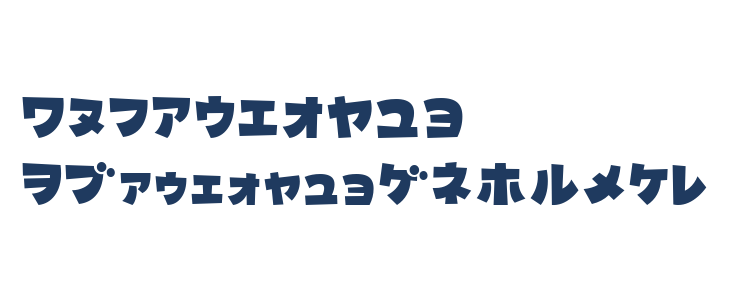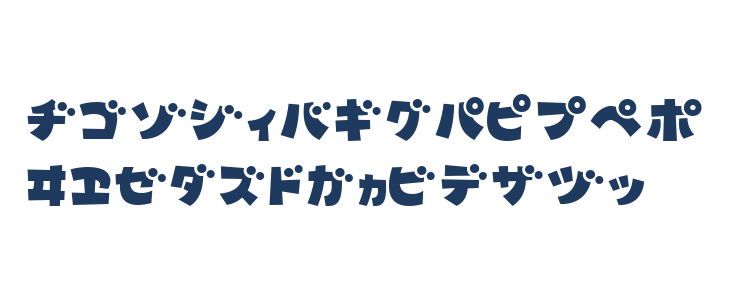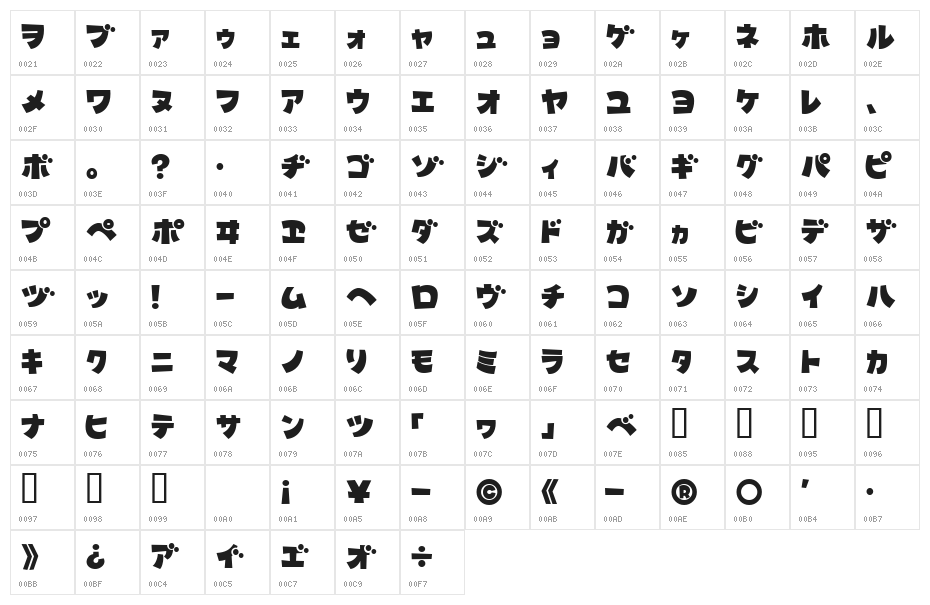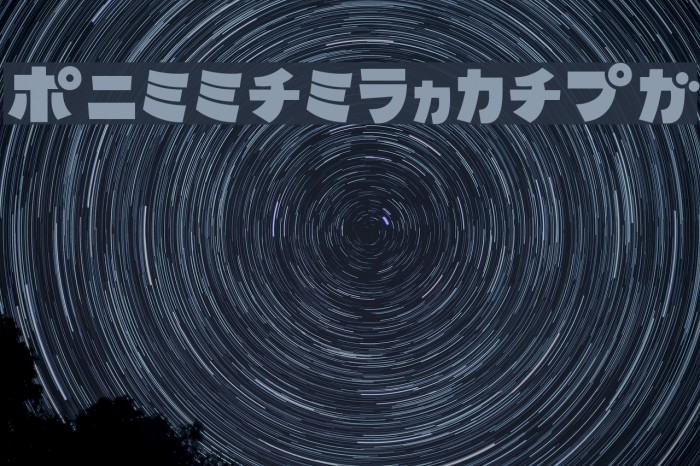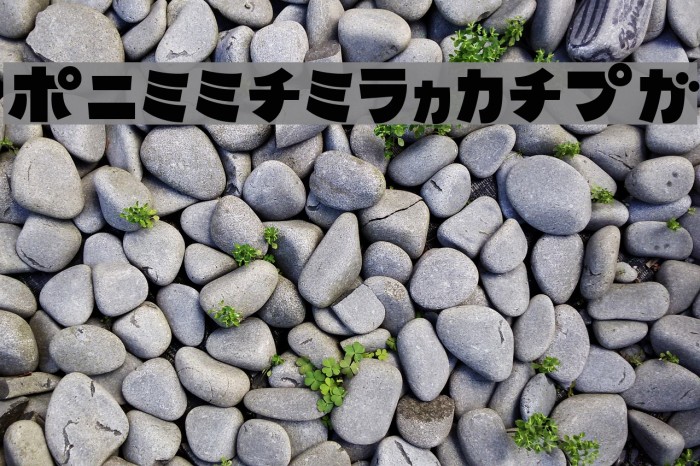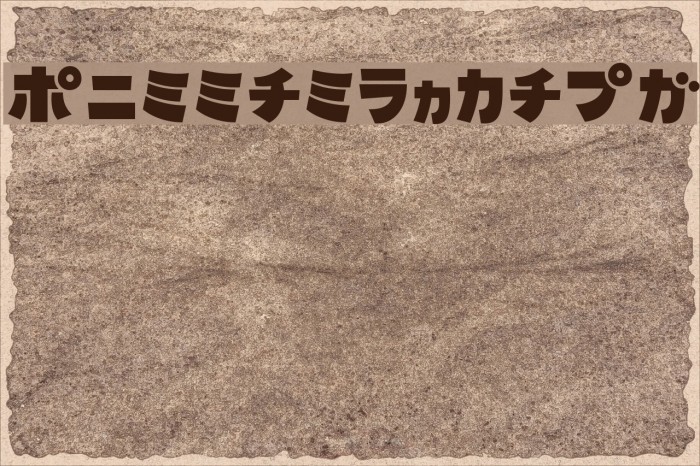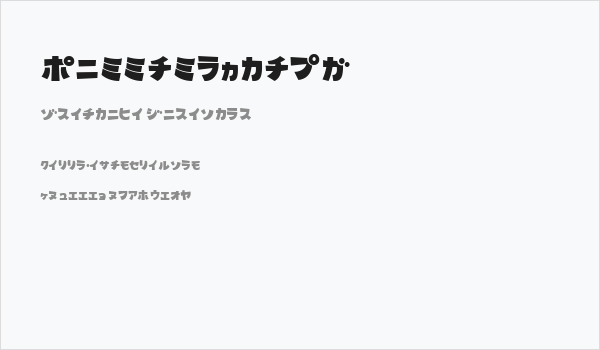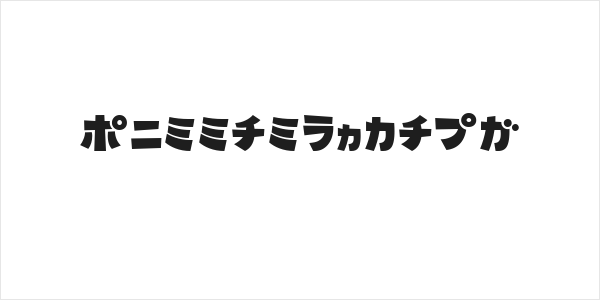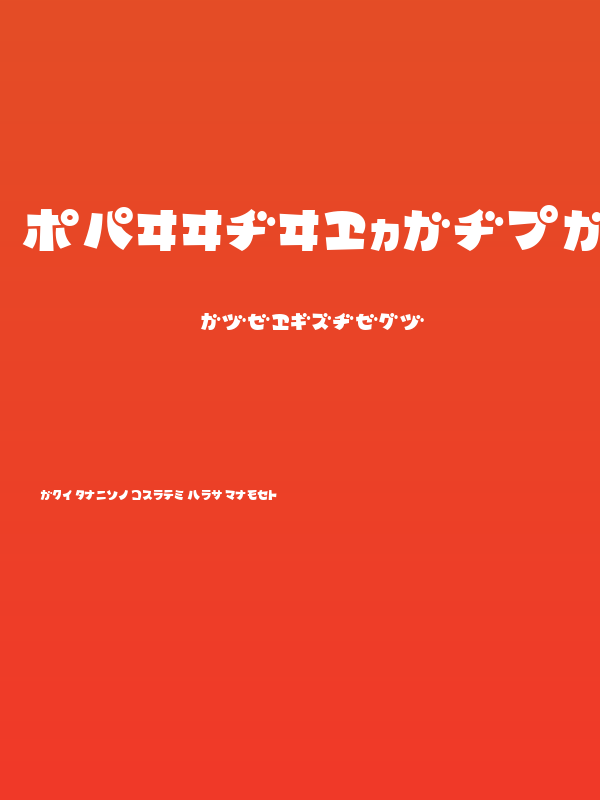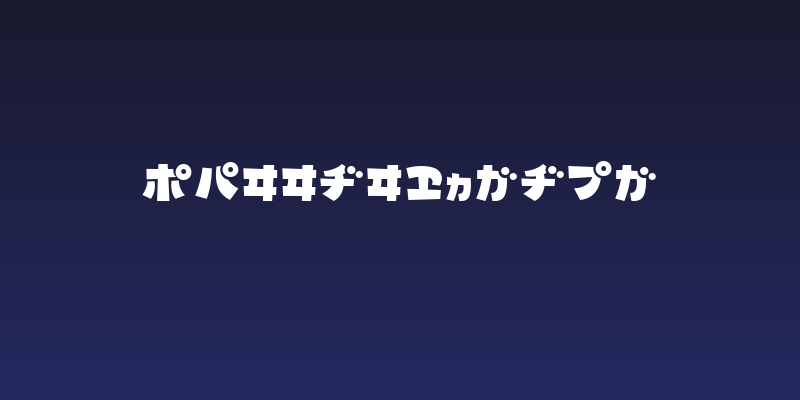
MinnanoUtaKT Font
This font features bold, rounded characters with a playful and friendly appearance. The strokes are thick and consistent, giving it a strong presence. The characters are evenly spaced, contributing to a clean and organized look. The overall style is modern and approachable, making it suitable for a variety of uses where a casual yet impactful impression is desired.
Proposed ProjectsIdeal for children's books, playful branding, posters, and educational materials.